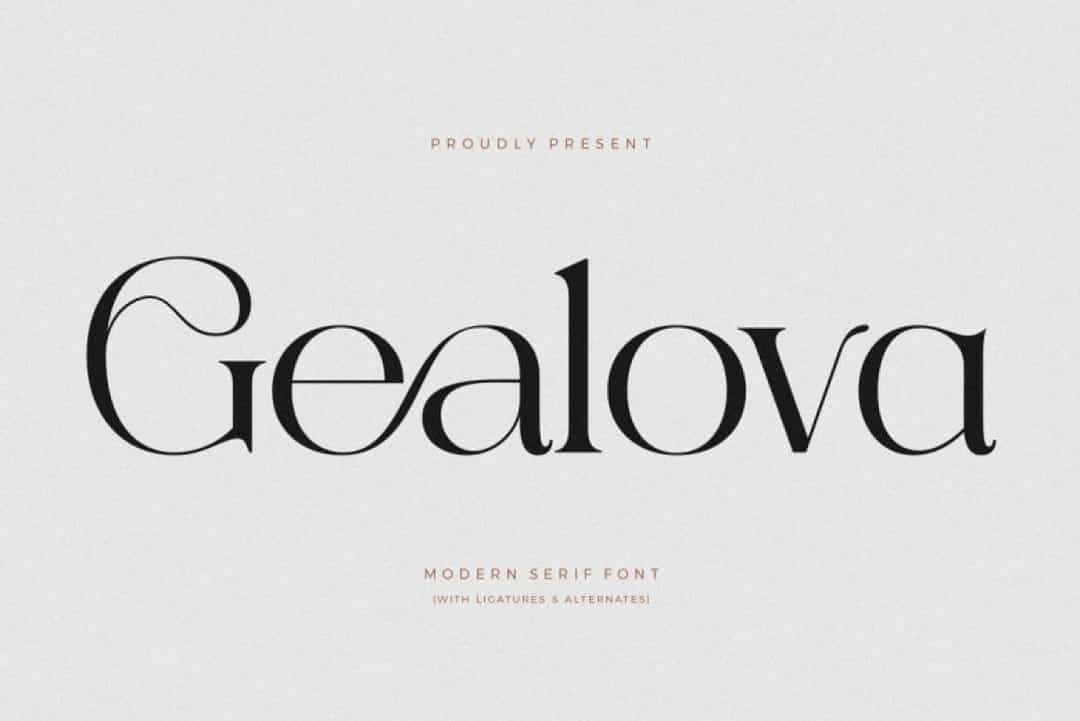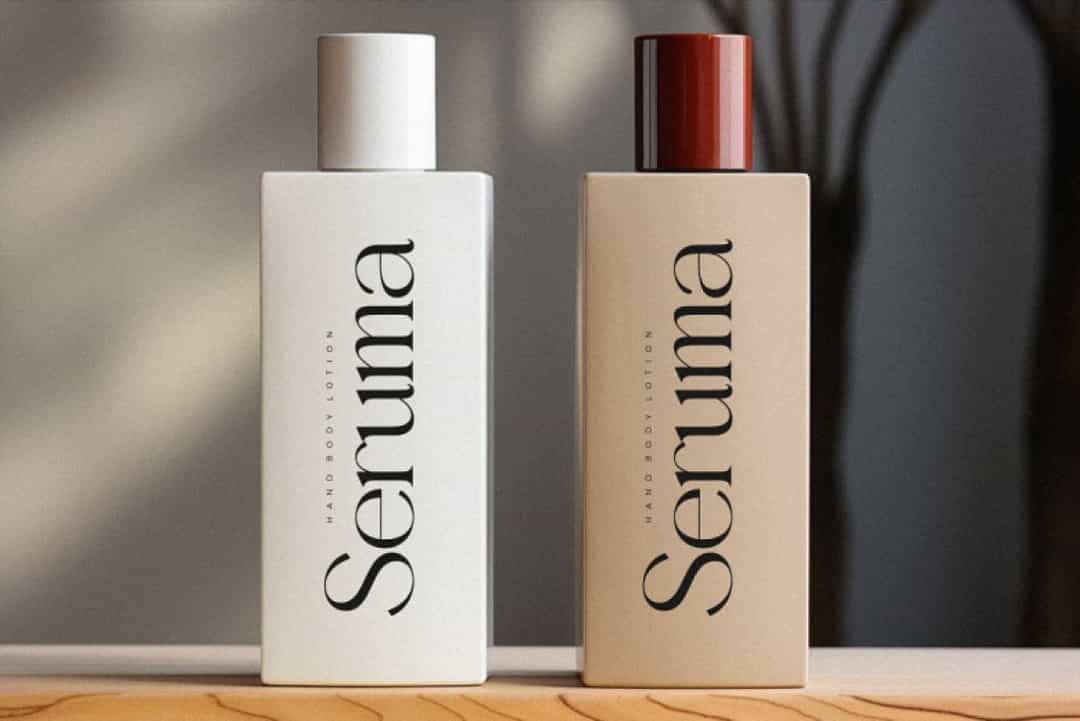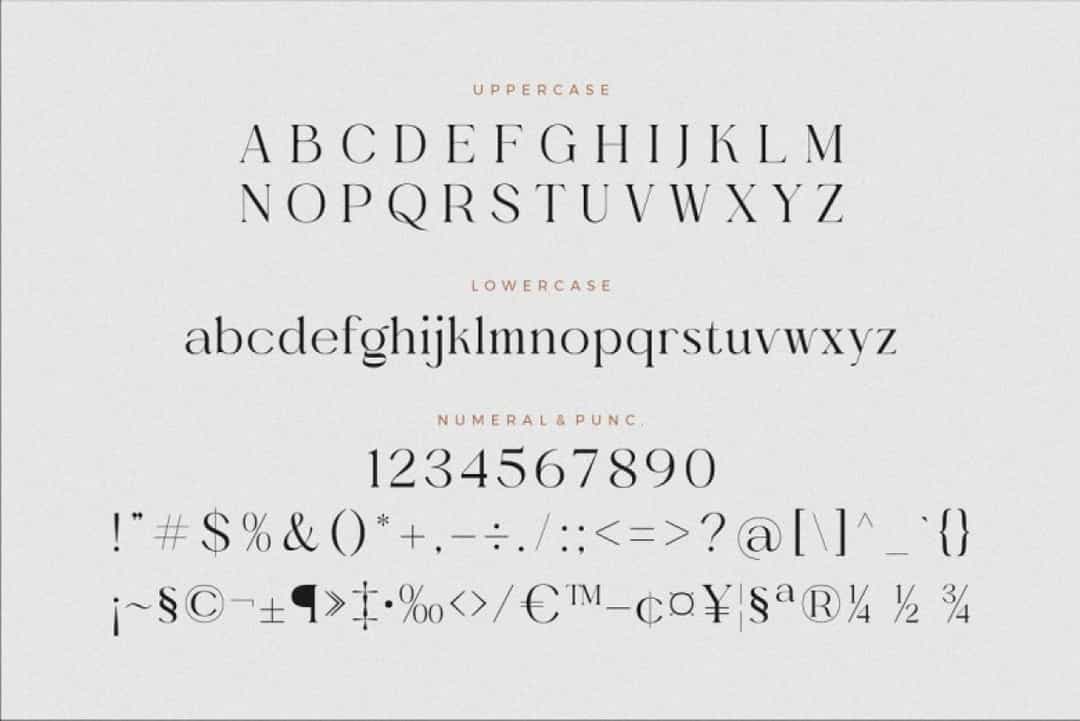
Gealova is an elegant and modern serif font, featuring graceful curves and delicate serifs that add a sense of class and sophistication to any design project.